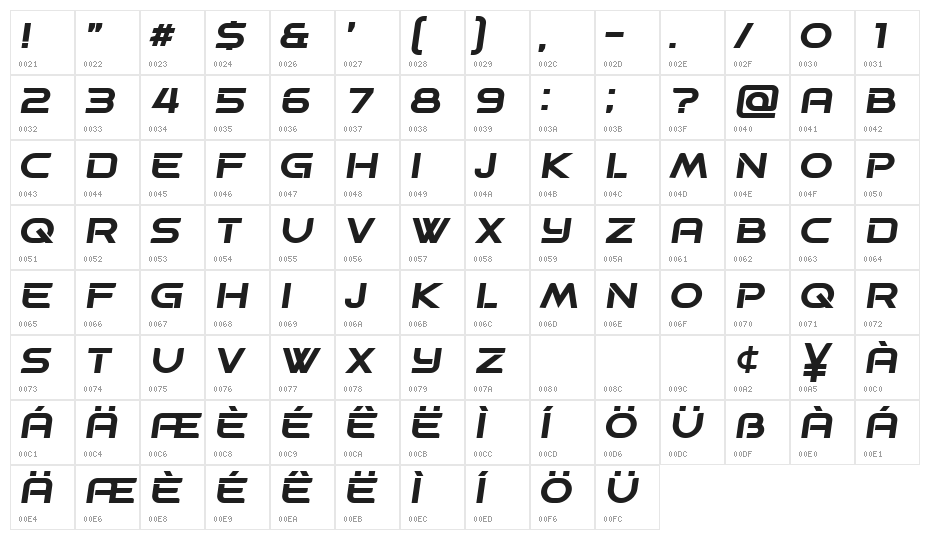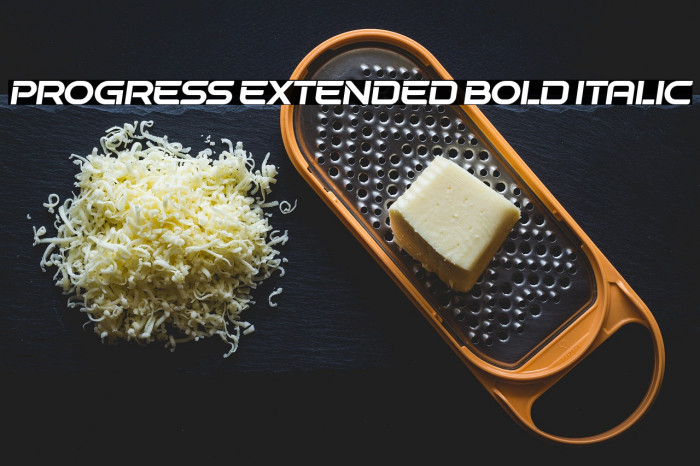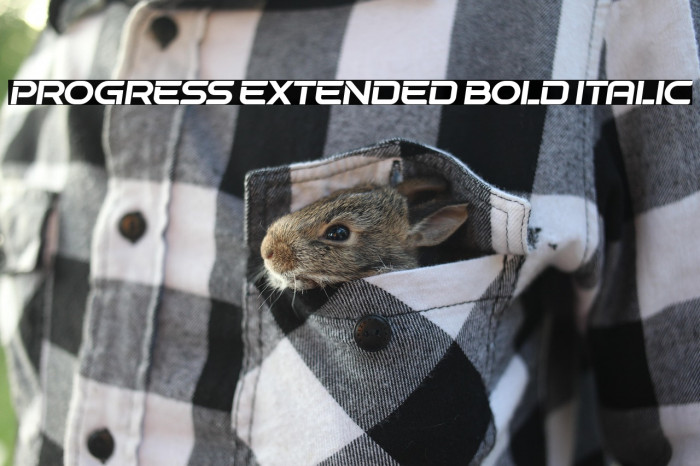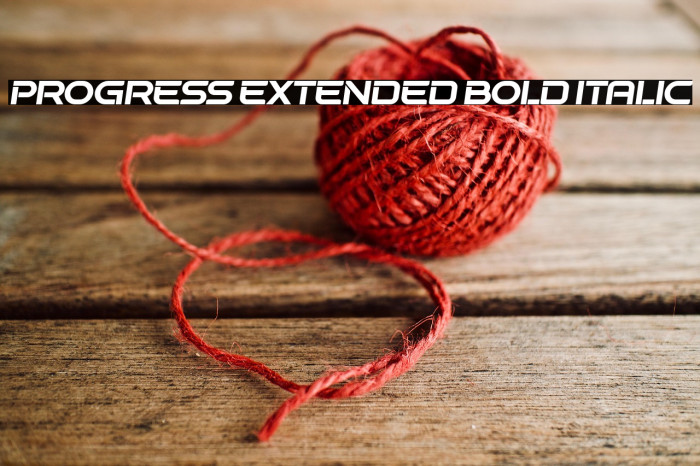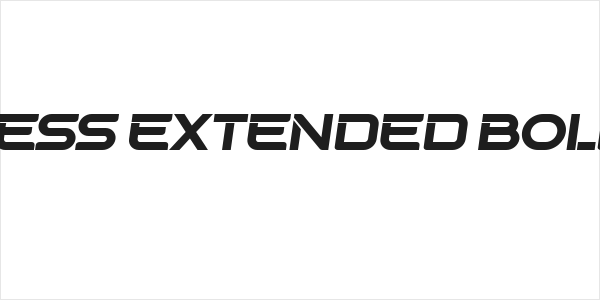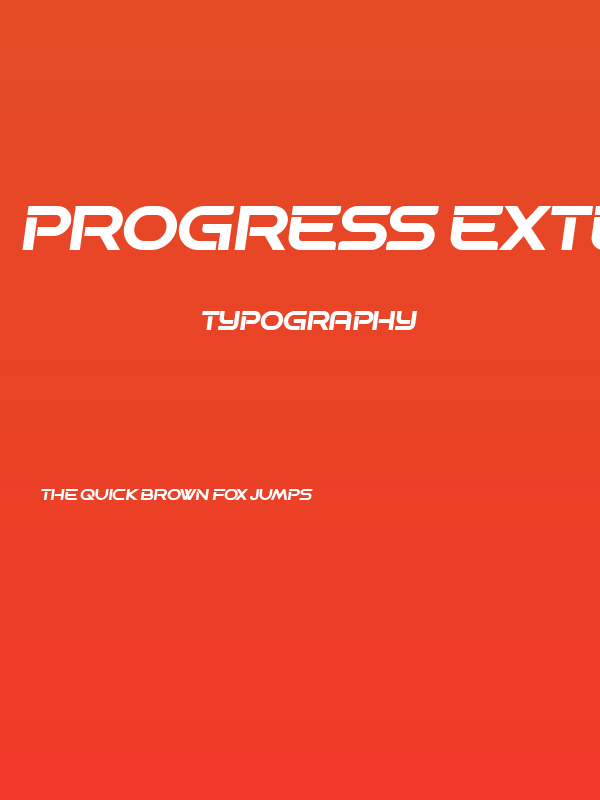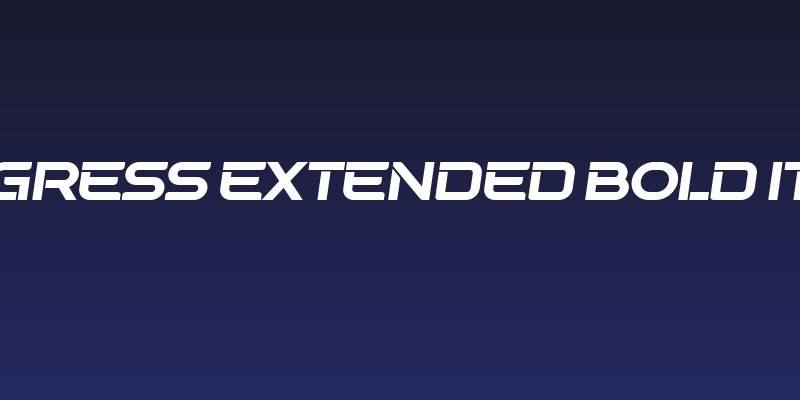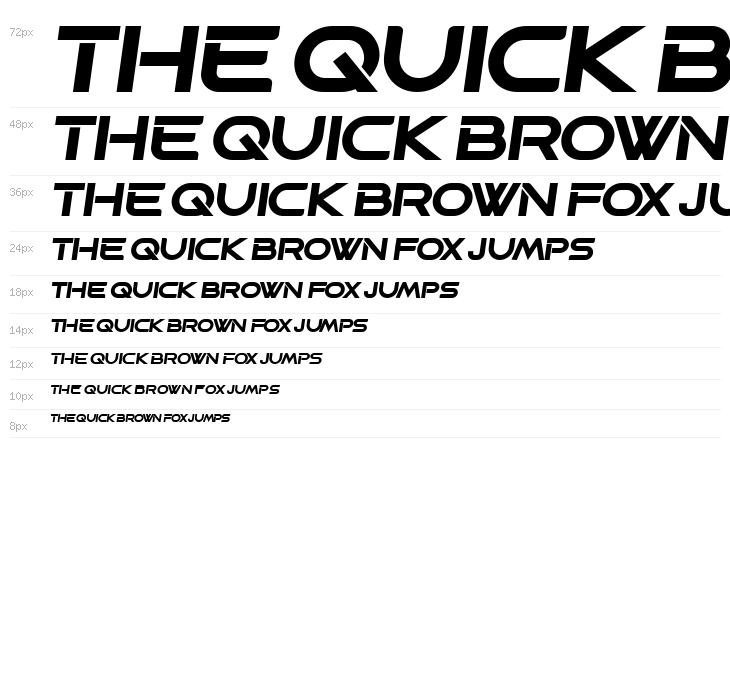
Progress Extended Bold Italic Font
Progress Extended Bold Italic Description
This font features a bold and italicized style with an extended width, giving it a dynamic and modern appearance. The characters are sleek and slightly slanted, enhancing the sense of motion and energy. The uppercase and lowercase letters maintain a consistent design, with clean lines and a futuristic feel. The numerals are equally bold, ensuring readability and impact. Special characters are distinct and match the overall aesthetic, making this font versatile for various applications.
| Use Case | Logos, Headlines, Branding |
| Proposed Projects | Ideal for branding, sports team logos, technology-related designs, and futuristic-themed projects. |